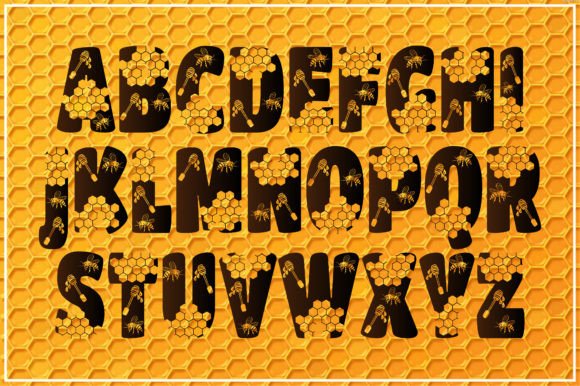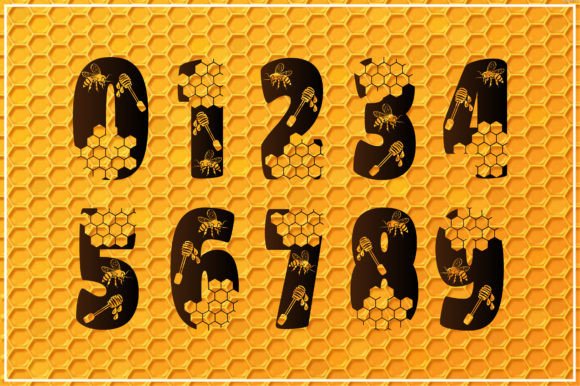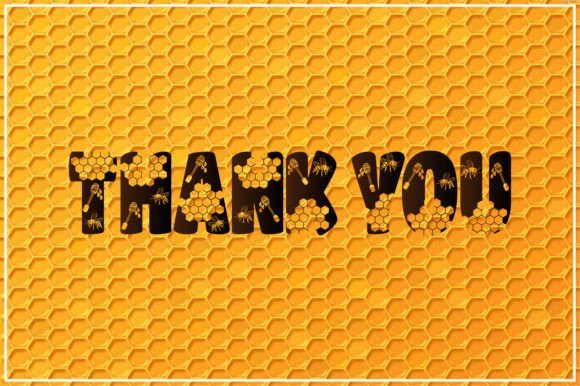
The Perfect Addition to Your Next Design Project
Have you ever been working on a design project, pouring your heart and soul into it, only to feel like something is missing? You’ve got the perfect color palette, the right shapes, and the perfect message, but it’s just not quite coming together? That’s where the Honeycomb Font comes in – a cool and dramatic decorative font that’s sure to elevate your design to the next level.
This versatile font is perfectly suitable for any design or crafty idea, adding a touch of sophistication and style to your projects. Whether you’re working on a logo, a social media graphic, or a handmade card, the Honeycomb Font is the perfect addition to take your design to the next level. With its unique, honeycomb-inspired design, this font is a valuable asset for designers looking to add some extra flair to their work.
Honeycomb Font Key Features
- Font Family: Honeycomb is a sans-serif font family that offers a unique, honeycomb-inspired design.
- Unique Characteristics: Features a distinctive honeycomb pattern in the letterforms, giving it a modern and eye-catching appearance.
Honeycomb Font Review
Overall, I think the Honeycomb Font has some nice features that make it a decent choice for certain projects. ✨ The font’s unique, honeycomb-inspired design is certainly eye-catching and could add a interesting touch to branding or packaging materials. ✨ The font is also relatively easy to read, even at smaller font sizes, which is a plus.
- Unique design that could add visual interest to certain projects
- Relatively easy to read, even at smaller font sizes
- Could be a good choice for branding or packaging materials
- ⚠️ The font may not be suitable for longer blocks of text, as the unique design can be overwhelming and difficult to read
- ⚠️ The font is not as versatile as some other options, and may not be suitable for a wide range of projects
While the Honeycomb Font has some nice features, it’s not a font that I would use for every project. It’s best suited for projects where a unique, eye-catching design is needed, and where the font will be used in small quantities. For longer blocks of text or more complex projects, I would likely choose a different font.
Tips for Getting the Most Out of Honeycomb Font
Use the Honeycomb font to create visually appealing headings and titles. Experiment with different font sizes and colors to add emphasis and hierarchy to your design. Use the font in combination with other design elements, such as images and graphics, to create a cohesive and engaging visual identity.
The Honeycomb font is suitable for a variety of design projects, including:
- Home decor and furniture design
- Wellness and self-care branding
Alternatives to Honeycomb Font
Fontin is a sans-serif font that features a similar geometric feel to Honeycomb Font. It’s ideal for use in modern designs where a clean and minimalist aesthetic is desired. Unlike Honeycomb Font, Fontin has a more rounded edge and is better suited for body text.
Comparison: Fontin is more versatile and can be used for a wider range of design applications, whereas Honeycomb Font is often used for headlines and titles.
Montserrat is a geometric sans-serif font that features a similar urban feel to Honeycomb Font. It’s ideal for use in designs that require a sense of sophistication and modernity. Unlike Honeycomb Font, Montserrat has a more angular edge and is better suited for use in larger font sizes.
Comparison: Montserrat is more versatile and can be used for a wider range of design applications, whereas Honeycomb Font is often used for headlines and titles.